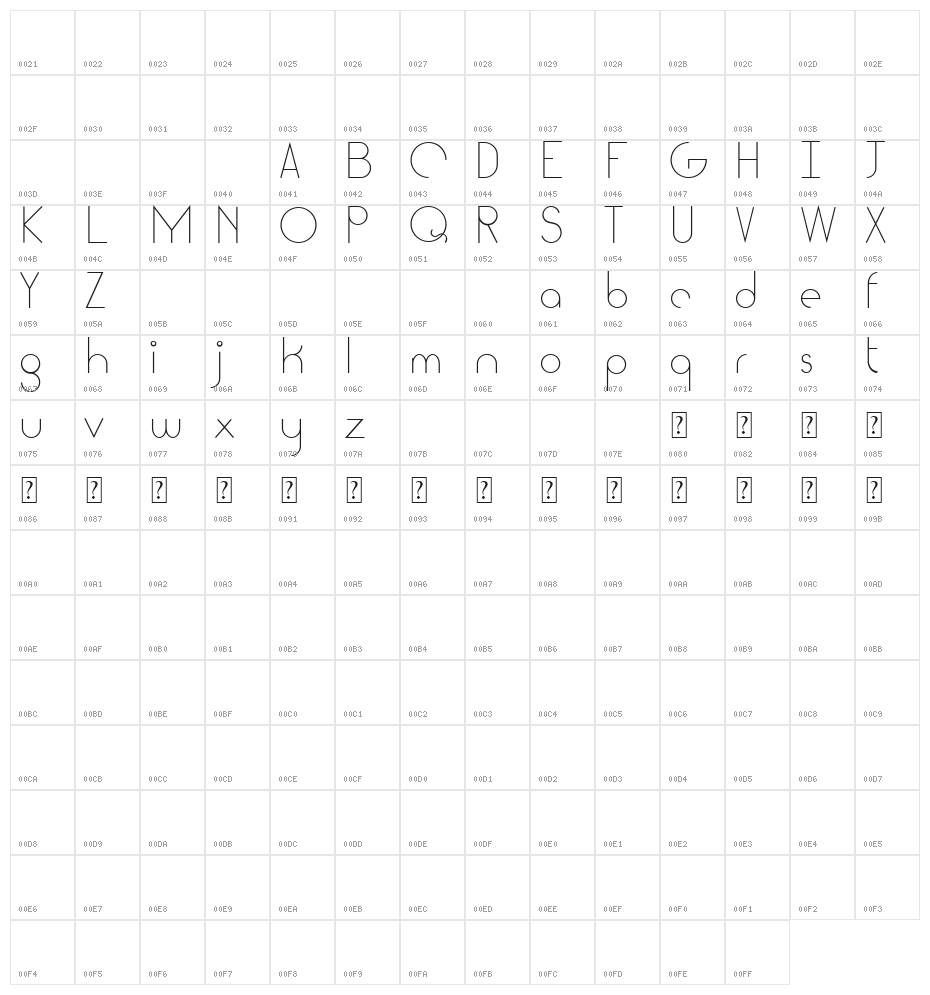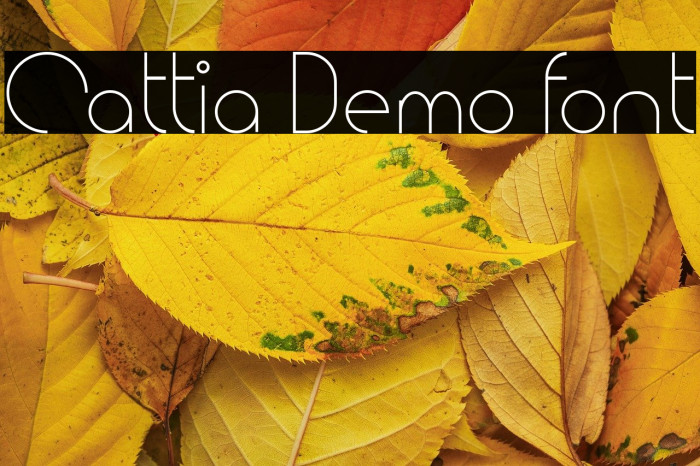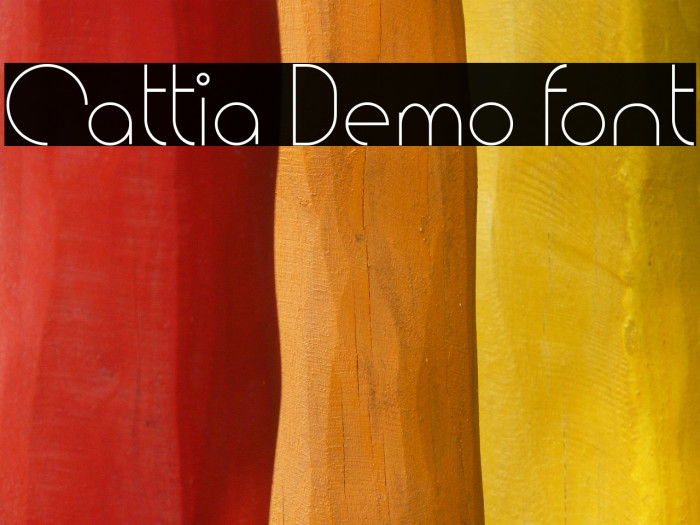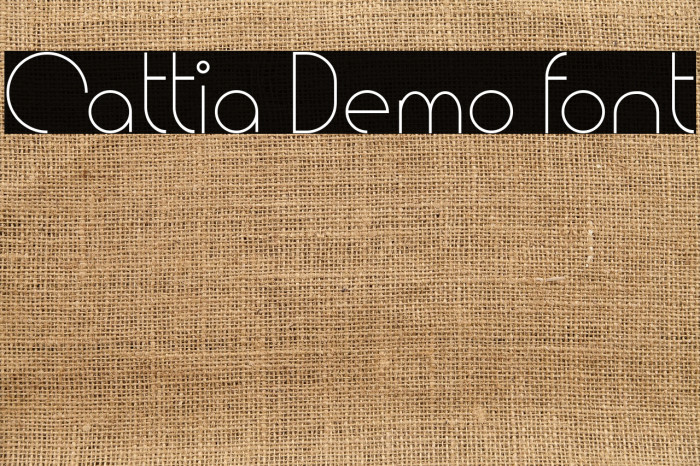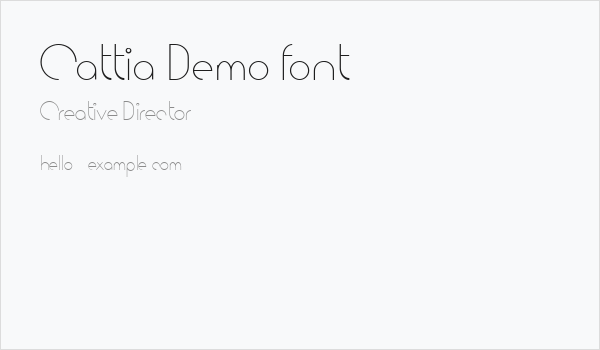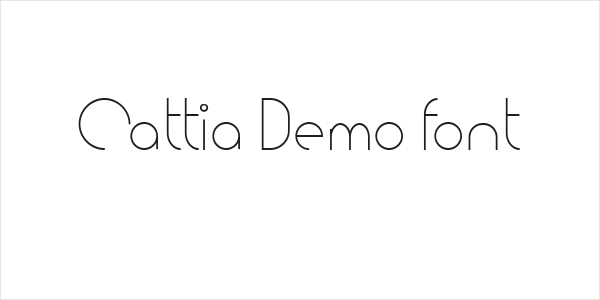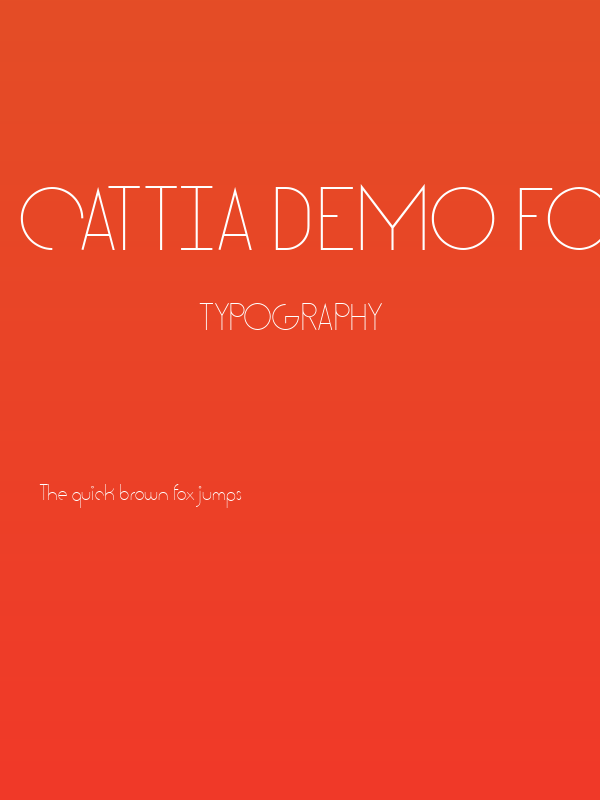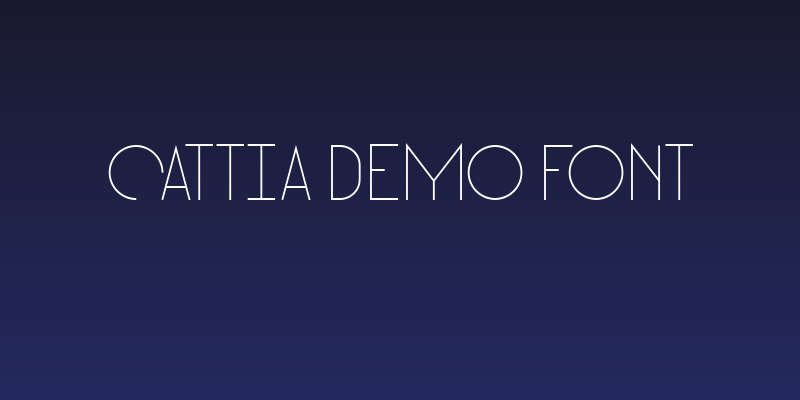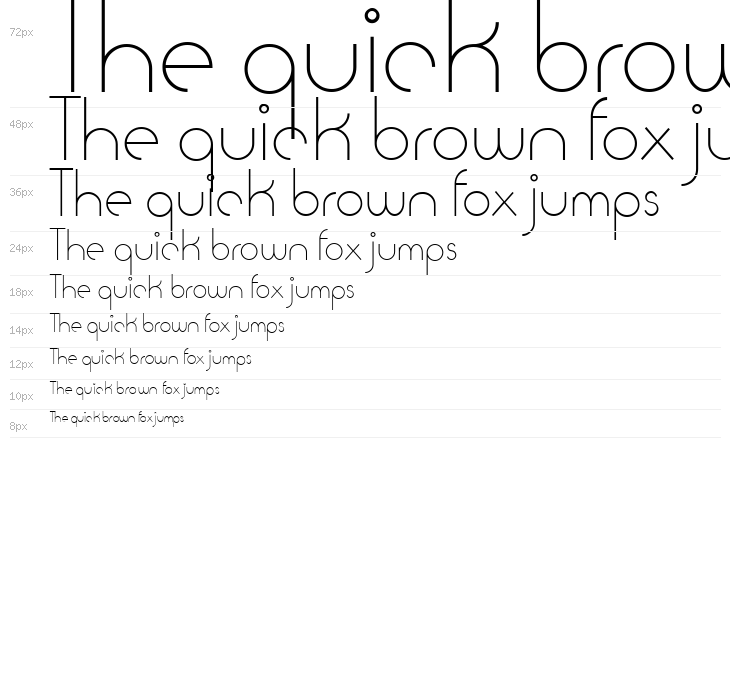
Cattia Demo font Description
This font features a modern and minimalist design with clean, geometric lines and a sleek appearance. The characters are composed of thin strokes with consistent weight, giving it a refined and elegant look. The uppercase letters are tall and narrow, while the lowercase letters maintain a similar style with a slightly more rounded approach. The font's overall aesthetic is contemporary, making it suitable for a variety of design projects. Its simplicity and clarity ensure readability while adding a touch of sophistication.
| Proposed Projects | Ideal for branding, editorial design, fashion magazines, and modern web design. |